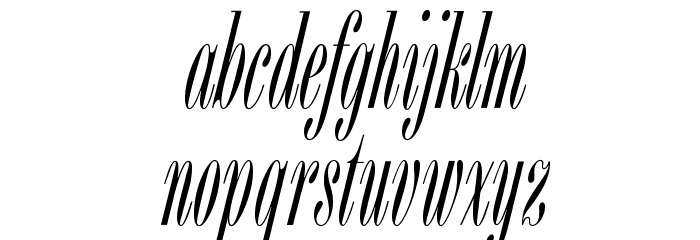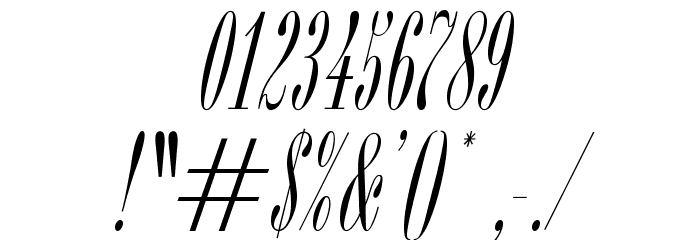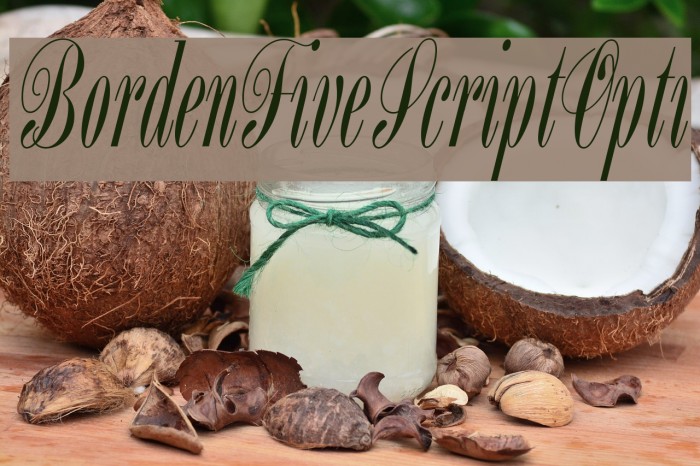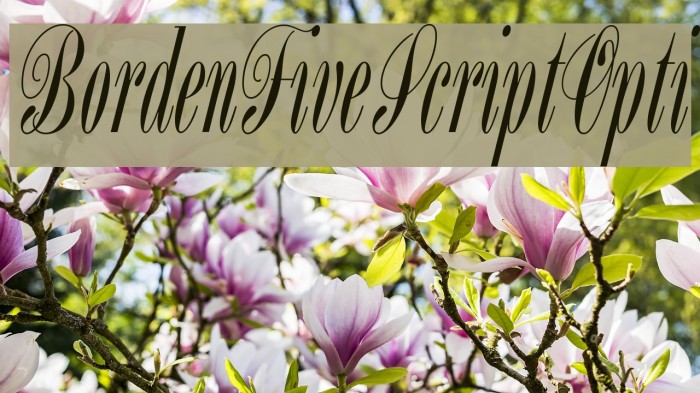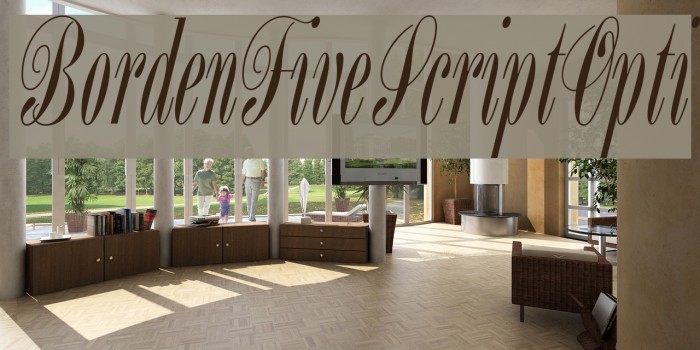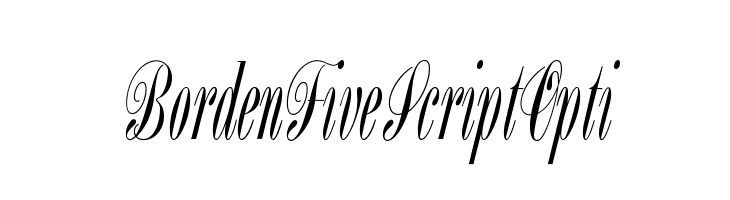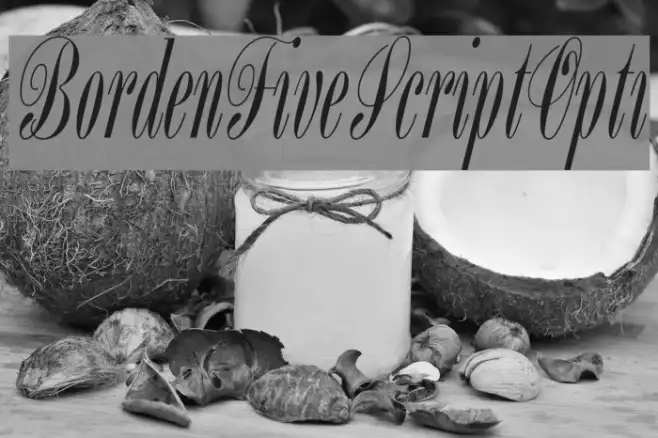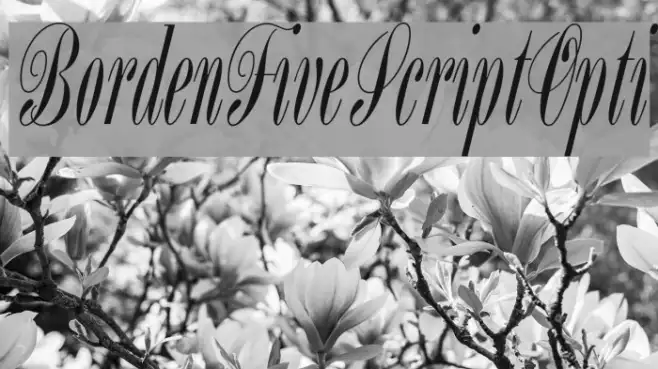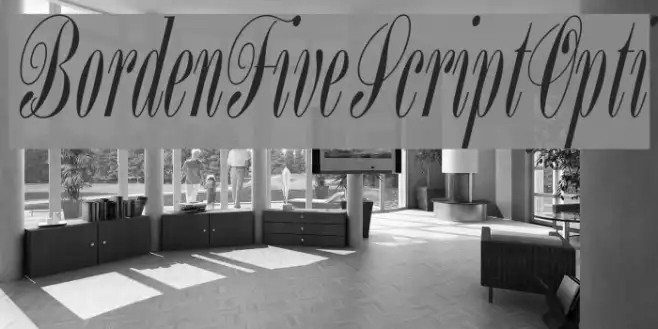
BordenFiveScriptOpti Font
This elegant script font features a sophisticated and flowing design, characterized by its ornate and decorative letterforms. The uppercase letters are particularly elaborate, with intricate swirls and flourishes that add a touch of luxury and refinement. The lowercase letters maintain a consistent style, offering a seamless and harmonious look. The numerals and special characters complement the overall aesthetic, ensuring versatility in various design applications. This font's high contrast between thick and thin strokes enhances its readability while maintaining an artistic flair. The overall style is both classic and decorative, making it suitable for projects that require a touch of elegance and sophistication.
An elegant and decorative script font with ornate flourishes and high contrast strokes.
- Proposed Projects: Ideal for wedding invitations, luxury branding, elegant packaging, and decorative headlines.
- Overall Style: Classic, Decorative
- Use Case: Headlines, Logos, Invitations